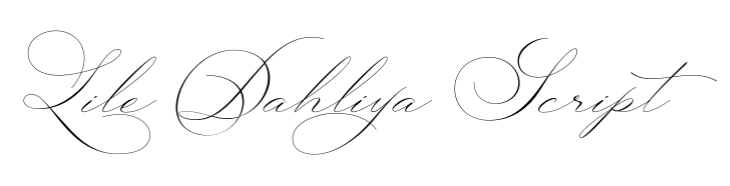
From song lyrics penned in delicate ink to loud, unmistakable phrases, tattoos say a lot about a person — sometimes quite literally. But beyond the overt text, the font choices play a huge part in how people interpret a tattoo. A love note printed in all caps on a typewriter reads very differently than a handwritten, cursive script in which the I’s are dotted with hearts.
Tattoos are fun designs to create, but when running into a request with words, choosing the right typography is critical. The best tattoo fonts are not only readable, but they need to stay that way as the person gets older.
Here are the 10 best tattoo fonts for text tattoos, plus tips on how to use them.
1. Cattedrale
A 2019 U.S. survey found that lettering tattoos were the most popular choice, with 38% of respondents saying they liked them. But the letters don’t even have to be easily readable to make a great tattoo.
With Cattedrale, legibility takes a backseat to visual appeal. Bold, ornate and just a little rough around the edges, it’s reminiscent of rock and roll logos and medieval texts.
Many classic chest tattoos use this font or a similar black-letter style. This Gothic script is perfect for large, single-word tattoos such as names or qualities a person believes in. Smaller designs would likely be blurry or difficult to read, making the font best suited for large body pieces. It works well in both uppercase and lowercase lettering.
2. Dancing Script
This delicate cursive font is delightfully feminine. It looks best in all-lowercase lettering, mimicking a person’s loopy cursive while still being clear and precise. The font has a somewhat hushed feel — almost like reading someone’s diary — and it can work very well for fine-line tattoos.
Dancing Script is great for song lyrics, inspirational quotes or single words. It could even work for a large block of text, such as a paragraph from a favorite book.
3. AZ Sailor Tattoo
For a traditional tattoo look, look no further than AZ Sailor Tattoo. One of the most recognizable tattooing fonts, AZ Sailor Tattoo features blocky letters with dark shading in their lower half. It mimics pre-World War II sailor ink and has a very classic, almost hand-drawn feel.
Consequently, most people use it alongside traditional motifs like a sailing ship, deck of cards, rose, swallow, or dagger. Another common use for it is on the classic heart tattoo with the word “MOM” written in all caps across the front. These designs often feature bold green and red shading.
The letters in this font are so rectangular and precisely shaded that they’re basically tiny drawings. That makes AZ Sailor Tattoo best suited for single words paired with an art piece rather than full sentences.
4. Courier
Courier stands out as one of the best tattoo fonts thanks to its legibility and clean lines. Tattoos written in this script look fresh from a typewriter, making it a great choice for quotes, phrases or names. It’s so easy to read that it even works for longer blocks of text.
Many people stick with black, lowercase lettering when using Courier to lean into the typewriter effect. The font also works well for numbers. Bold designs and bright colors can easily overpower the delicate lettering, so it looks best on bare patches of skin. Tattoos written in this font are typically standalone designs. However, some people frame the text with drawings.
5. Lile Dahliya
This classic calligraphy font is refined, airy and elegant. It features gaudy flourishes and broad curves akin to a countess’ autograph — it would be easy to replicate with a genuine pheasant plume pen.
This script is perfect for immortalizing someone’s name or a single word in a minimalist design. The thin, intricate lines make it best suited for a medium to large tattoo, as the ink spreading in a smaller design might make the text illegible over time.
6. Hello Sailor
As the name implies, this is another old-school sailor tattoo font. People commonly pair this all-uppercase text with classic designs like tigers, flowers, mermaids, skulls, and diamonds. Traditional tattoos usually include the text on a banner or ribbon beneath, above, or wrapping around the drawing.
The lines in Hello Sailor are thin and very legible. However, the letters stand out for their curves and unusual, hand-drawn serifs, with many letters bearing serifs on their left side.
It’s hard to go wrong with this font. In general, it may not work well with longer quotes, since the letters themselves are quite decorative and can take up a lot of space. It’s best for single words or short phrases.
7. Secret Society
This vintage, hand-drawn serif font is gorgeously Southern — it would look right at home on an old whiskey label. The capital letters and smooth, stripped-bare numbers are a throwback to retro restaurants and barber shops.
Secret Society works very well for text-based tattoos. Because it’s so legible, it’s a great choice for designs that incorporate artwork. Some of the subtleties of the lettering might get lost in a small design, however, so this font is best for medium to large tattoos.
These are by no means the only fonts a designer can use in a tattoo, but they provide a good basis for what elements work. Just remember to avoid typefaces that are too detailed or thin. Those have a much more significant chance of fading into a blurry mess, especially if the design is too small. Play around with the options out there or create a font unique to the person the tattoo is on. What matters most is that the design is significant to the person getting inked.